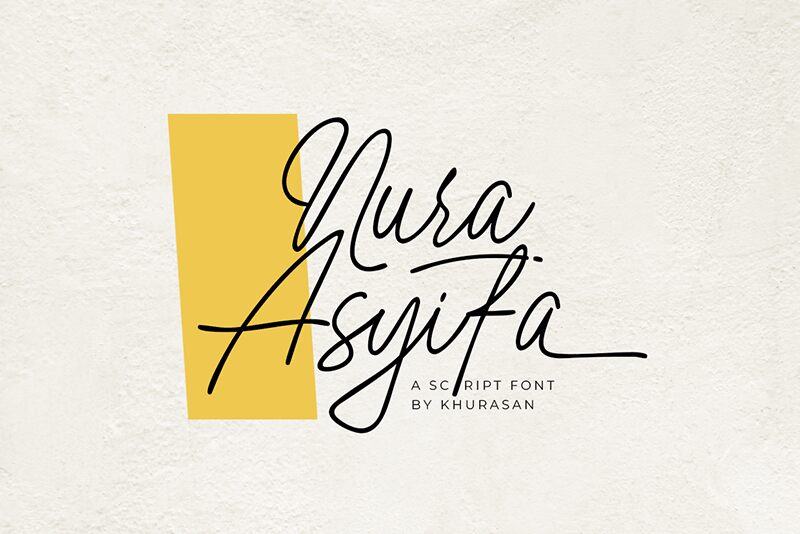
Nura Asyifa
Nura Asyifa, the charming handwritten font designed by Khurasan, is perfect for adding a personal touch to any creative project. The extra-light weight of this font makes it ideal for use in delicate designs, while the flowing curves and playful strokes lend themselves to a variety of styles. Whether you're designing wedding invitations or creating social media graphics, Nura Asyifa brings a touch of whimsy and elegance that's sure to captivate your audience. Let your creativity soar with this one-of-a-kind font that's perfect for any project that needs a little extra flair!